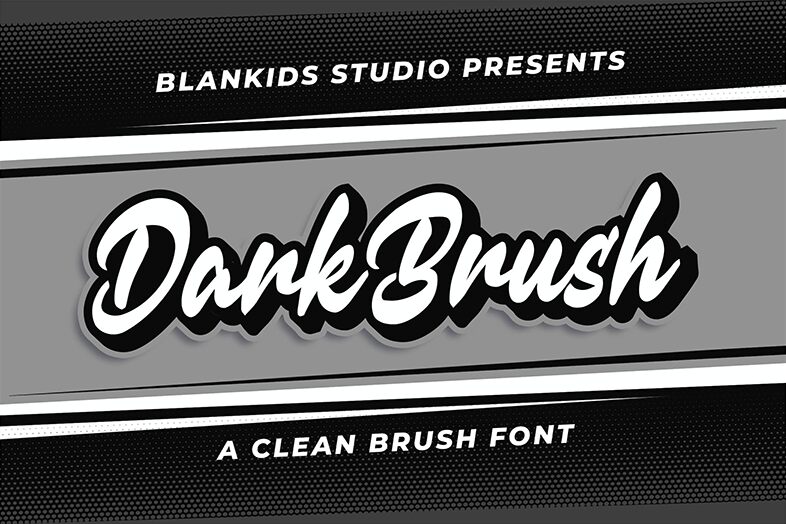
Dark Brush Extrude, crafted by Blankids, exudes artistic flair and bold confidence with its distinct brush strokes. This bold font's dynamic and expressive nature brings a lively sense of energy, making it ideal for eye-catching designs that demand attention. The thick, exaggerated lines and organic curves paint a picture of creativity and authenticity, perfect for projects that aim to make a memorable impact.
Whether used in branding, posters, or social media graphics, Dark Brush Extrude effortlessly commands attention while adding an artistic touch. Its unique blend of playfulness and sophistication makes it versatile for both modern and vintage-themed designs. Unleash your creativity with this striking brush font to create visually compelling pieces that stand out from the crowd.
Dark Brush Extrude by Blankids Studio